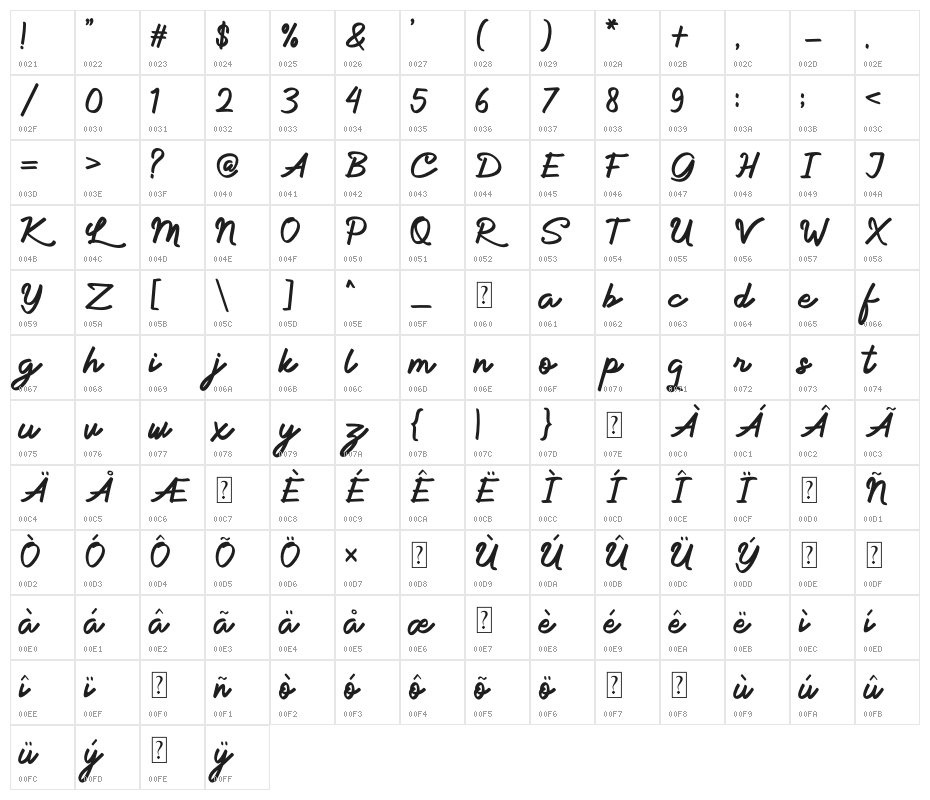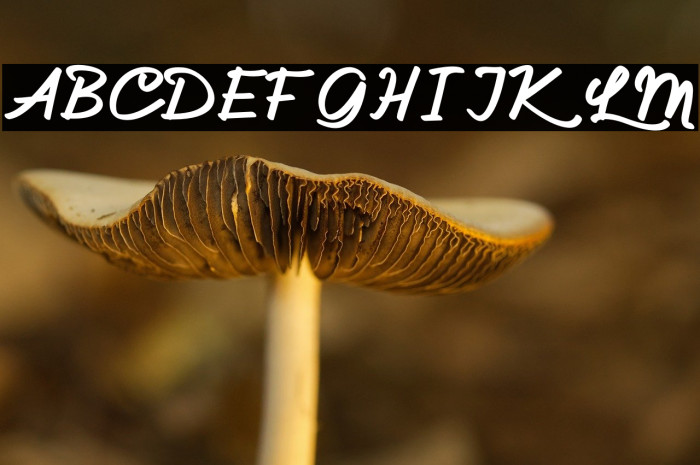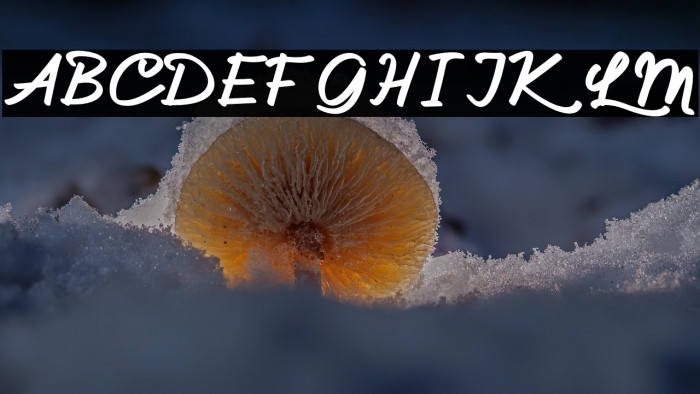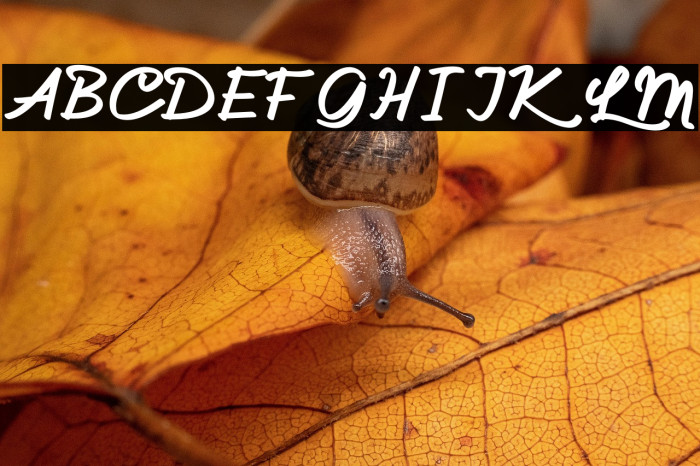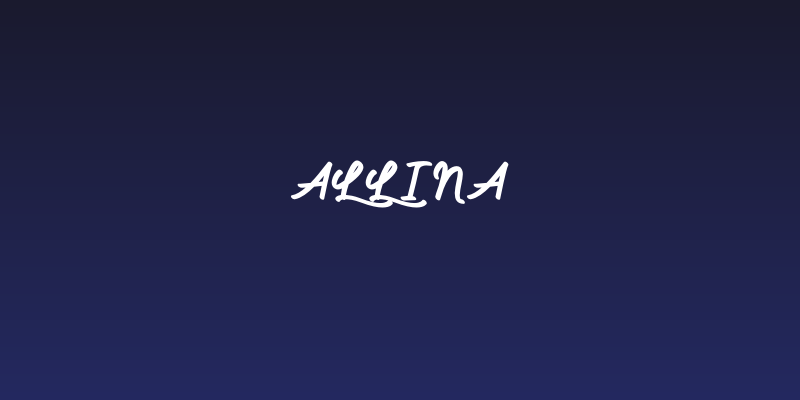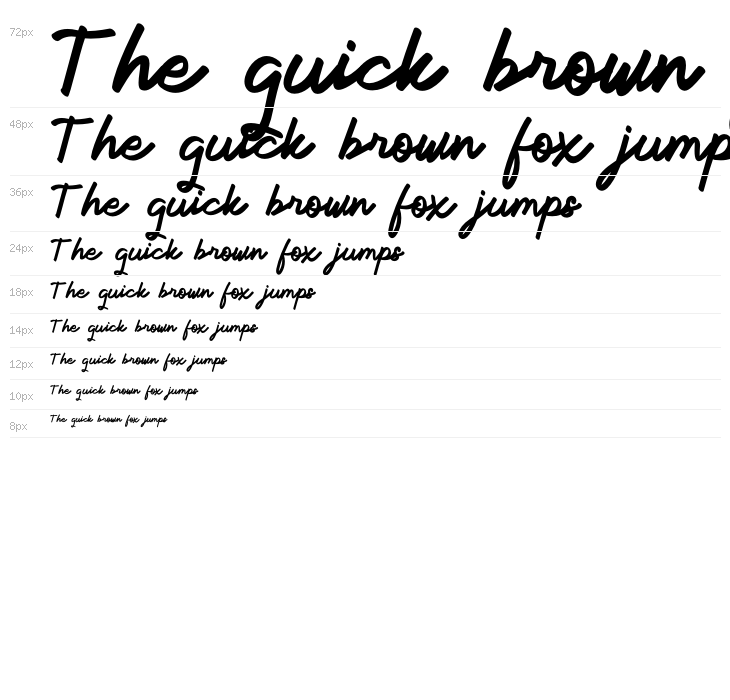
Allina Font
Allina Description
This font features a dynamic and flowing script style, characterized by its cursive, handwritten appearance. The uppercase letters are elegantly connected, while the lowercase letters maintain a smooth and consistent flow. The numbers and special characters are designed to match the overall script aesthetic, providing a cohesive look. The strokes are bold and confident, giving the font a strong presence. This font is ideal for projects that require a personal touch, such as invitations, greeting cards, or branding materials that aim to convey elegance and sophistication.
| Proposed Projects | Ideal for wedding invitations, greeting cards, branding, and elegant packaging. |